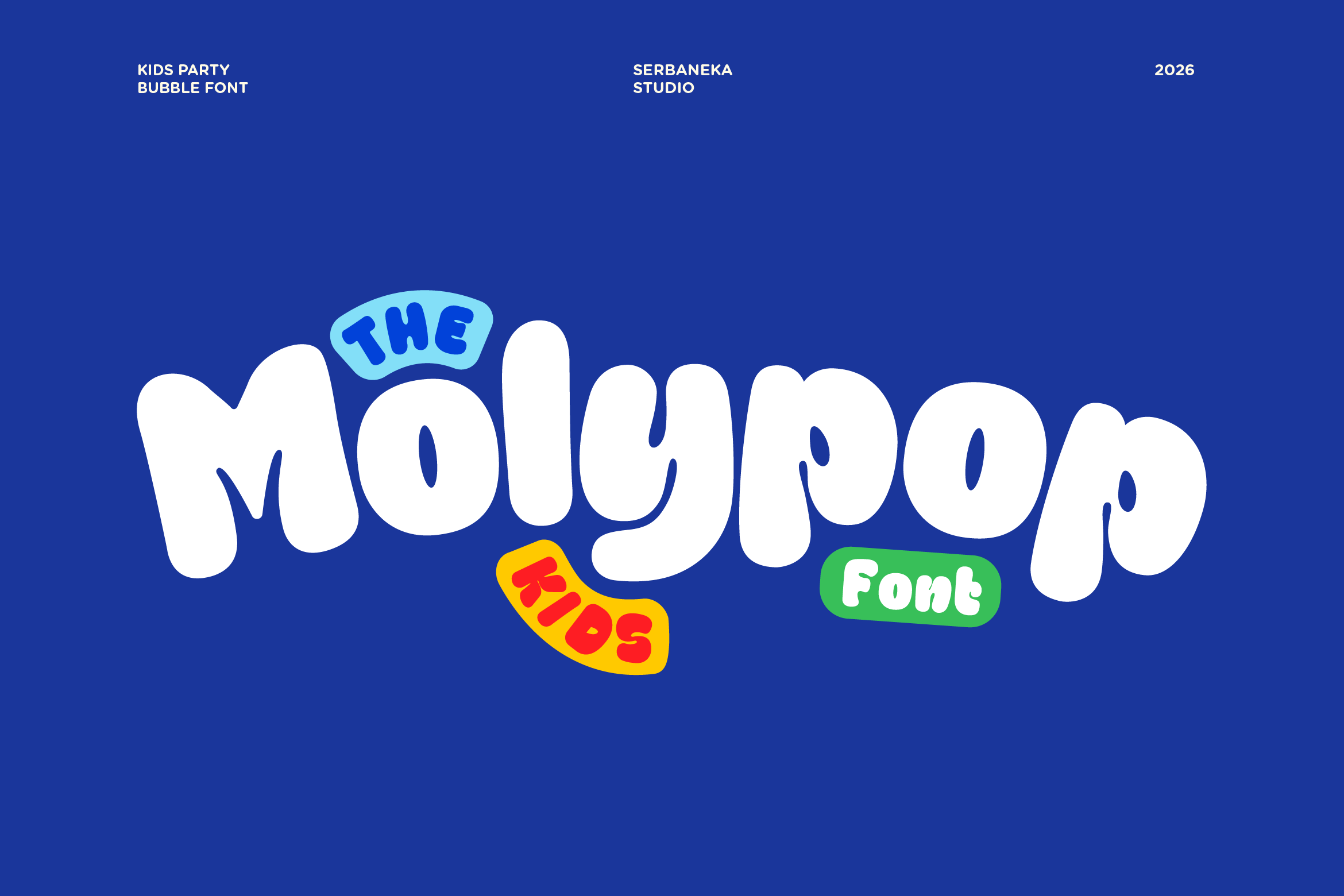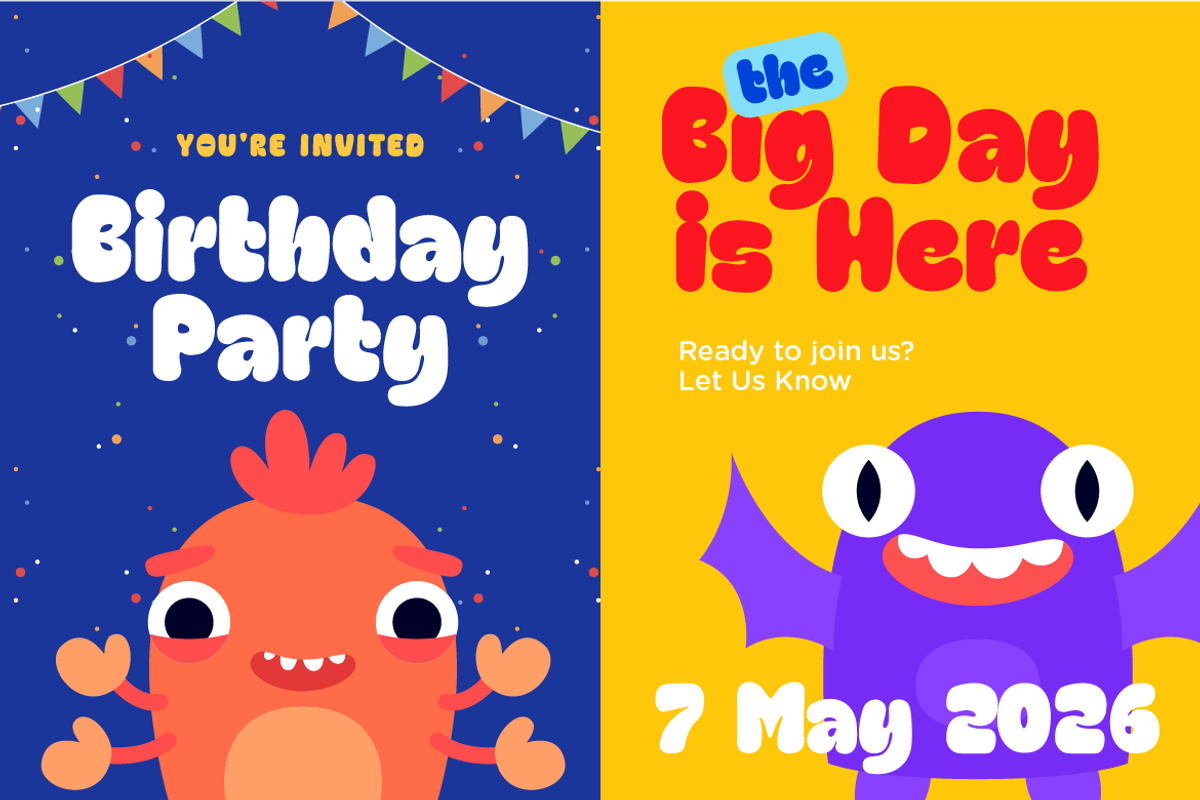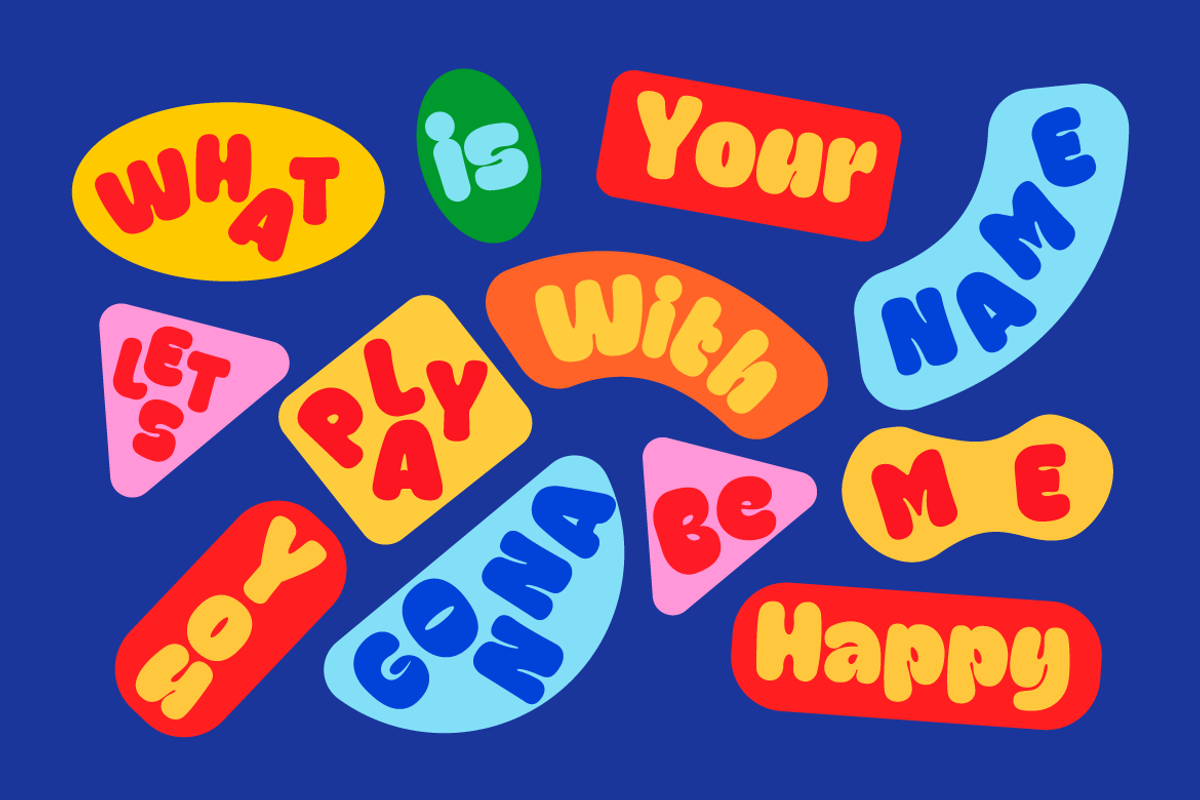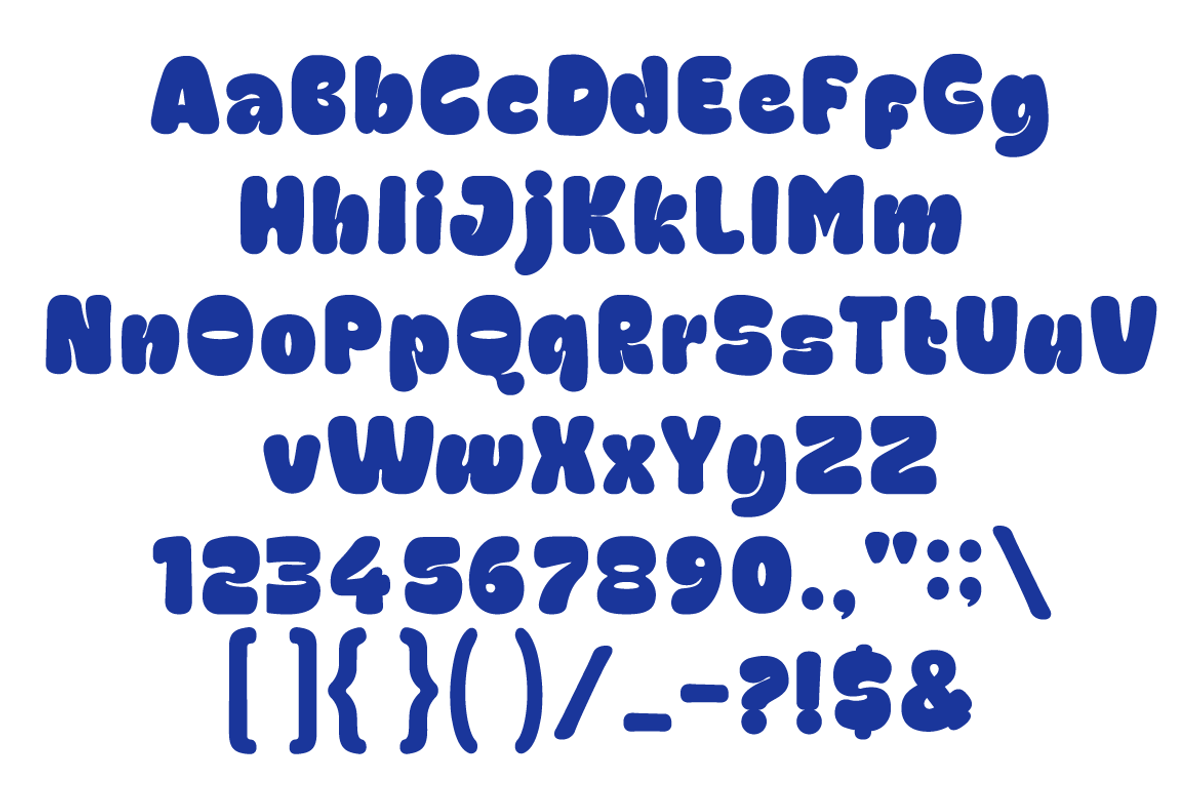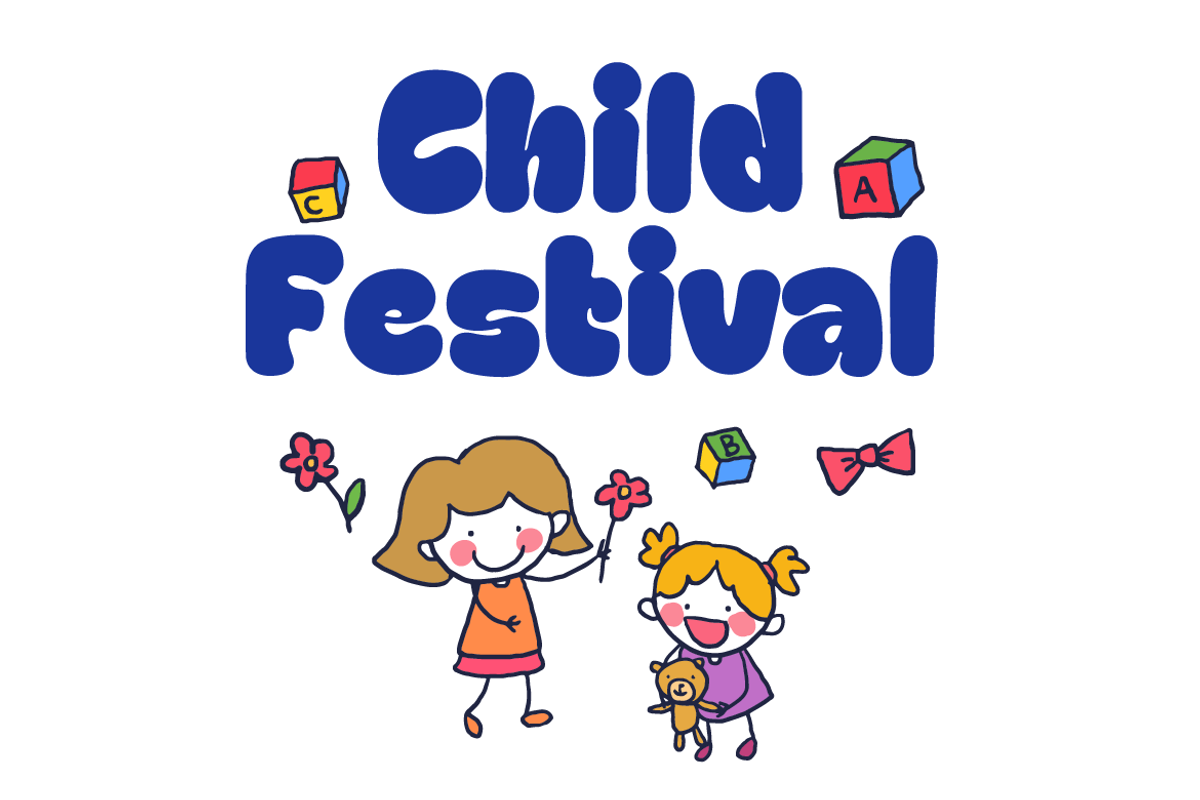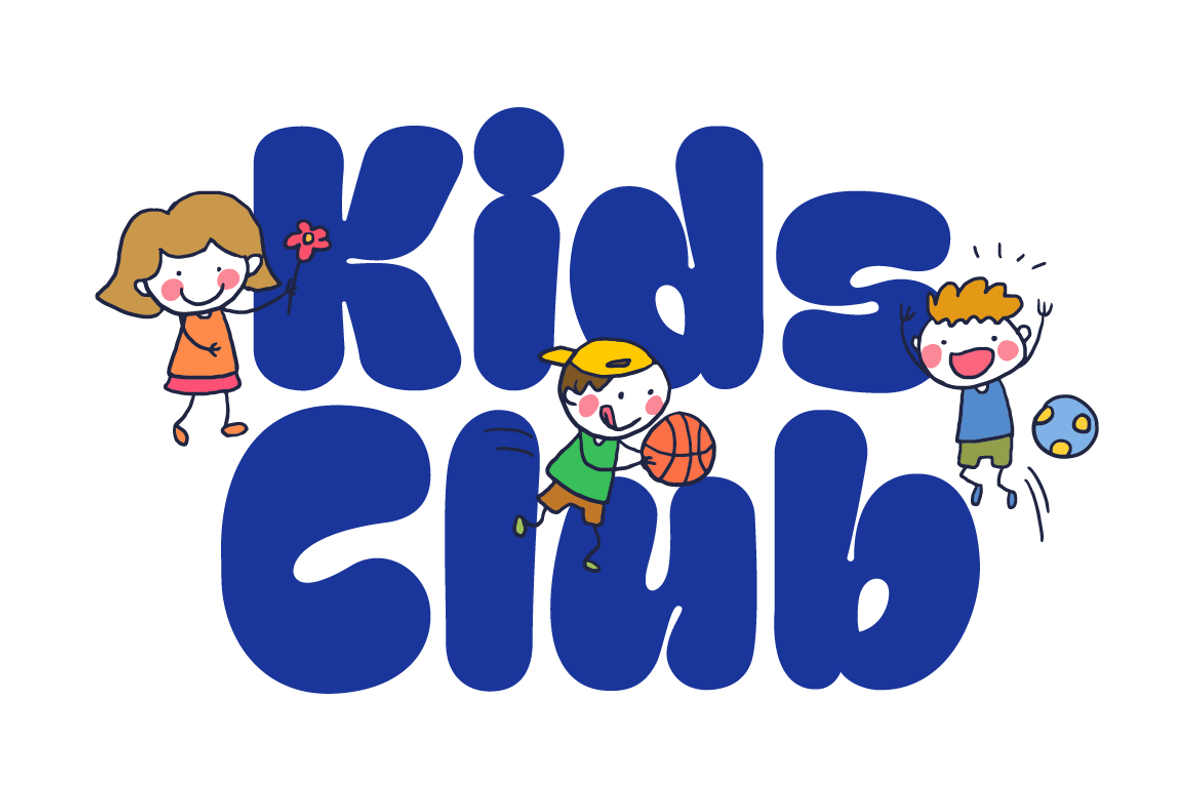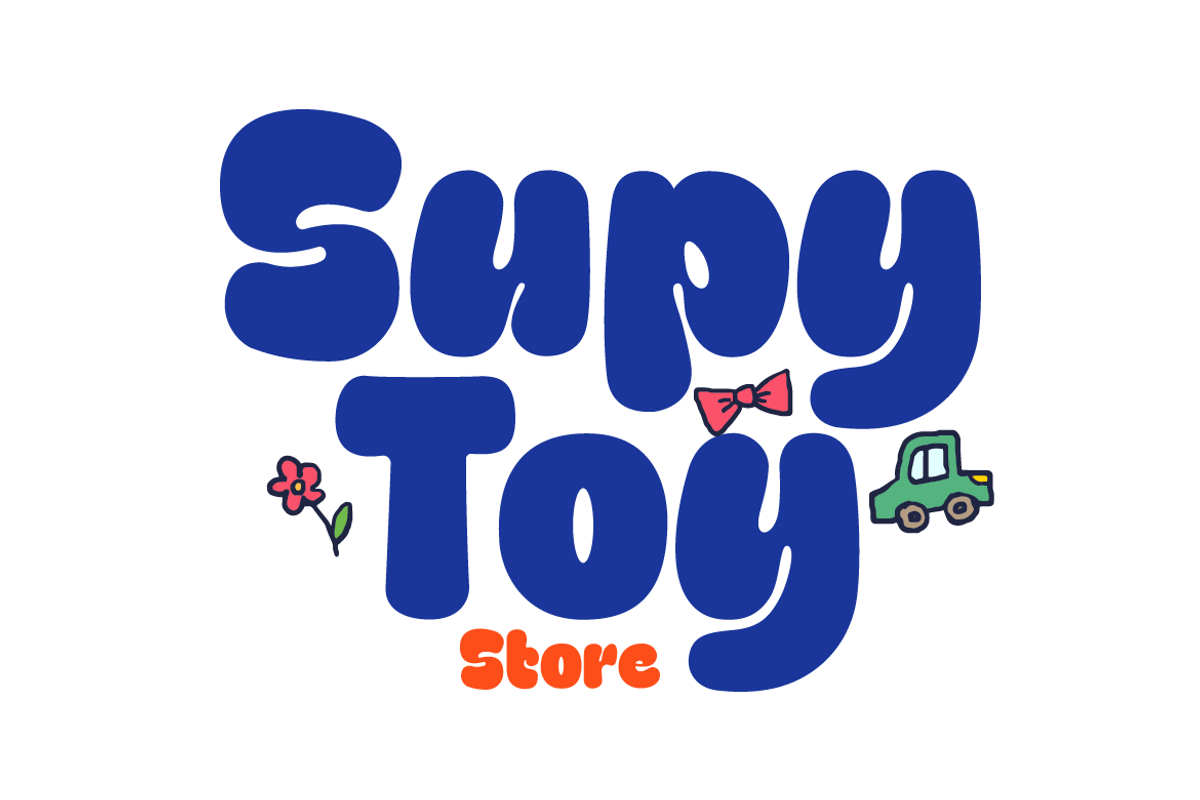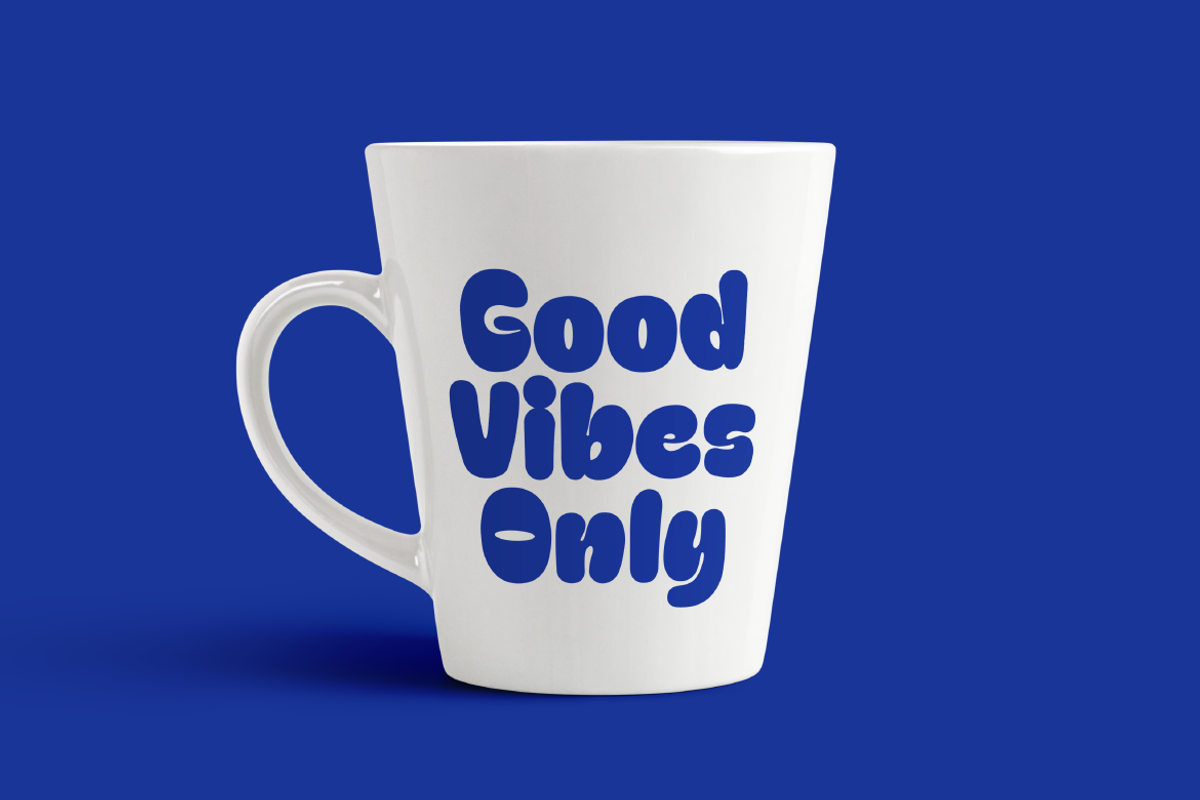
Molypop Kids Party Bold Font
Molypop is a fun and bold bubble display font specially crafted for kids party and birthday-themed designs. With its soft rounded shapes and cheerful personality, this font brings a lively and joyful feel to every project.
Designed to stand out, Molypop is perfect for party invitations, birthday decorations, kids event posters, food branding, restaurant, and playfulm project. Its thick and smooth letterforms make it highly readable while keeping a cute and energetic style that kids love.
Beyond party themes, Molypop also works perfectly for toy packaging, and kids merchandise making it a versatile choice for designers and creators targeting the children’s market.
Whether you're creating a birthday invitation, a fun logo, or a playful product, Molypop adds a bright and happy touch that instantly grabs attention.
Uppercase & Lowercase Letters
Bold Bubble Style
Smooth Rounded Shapes
High Readability